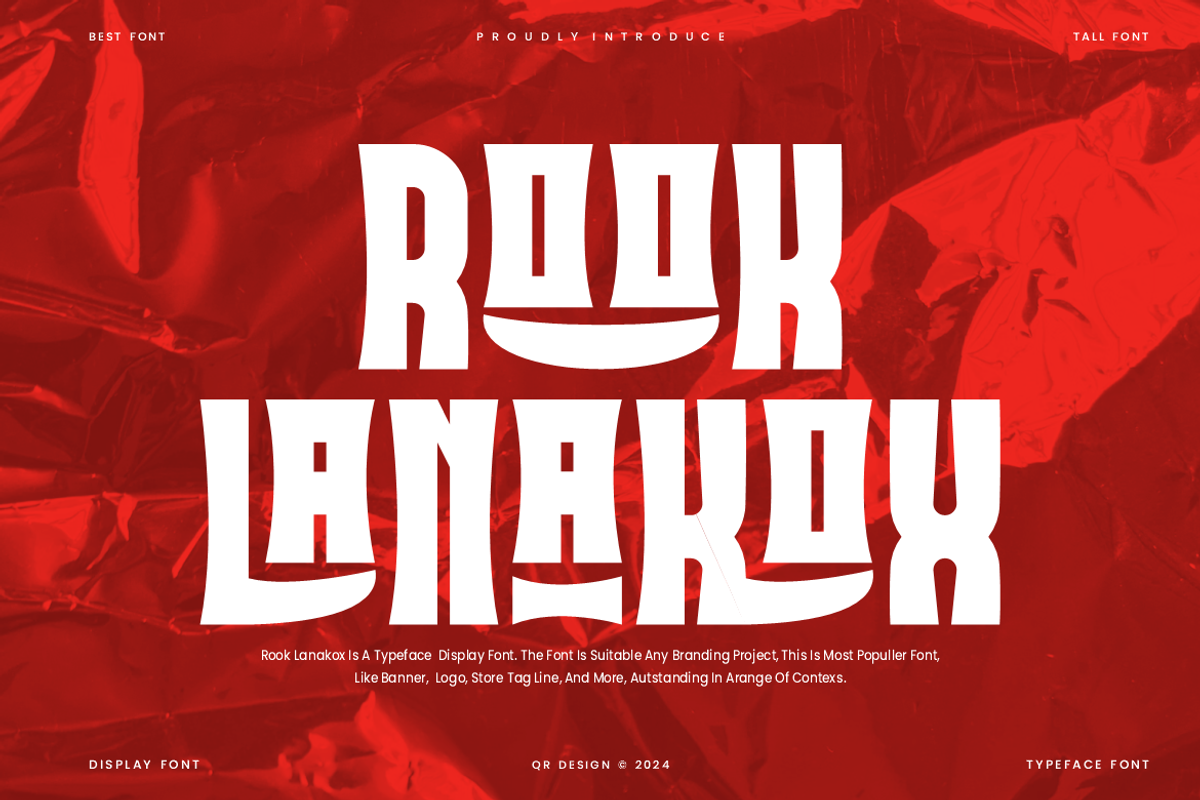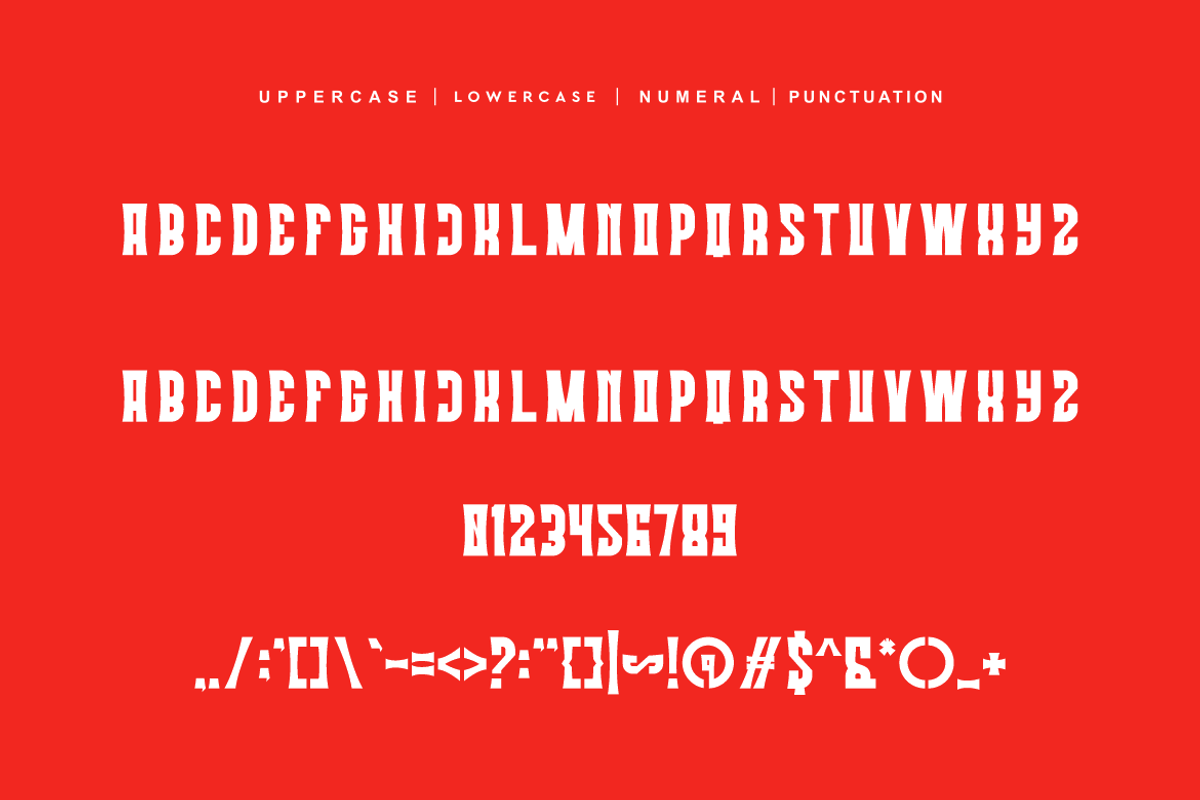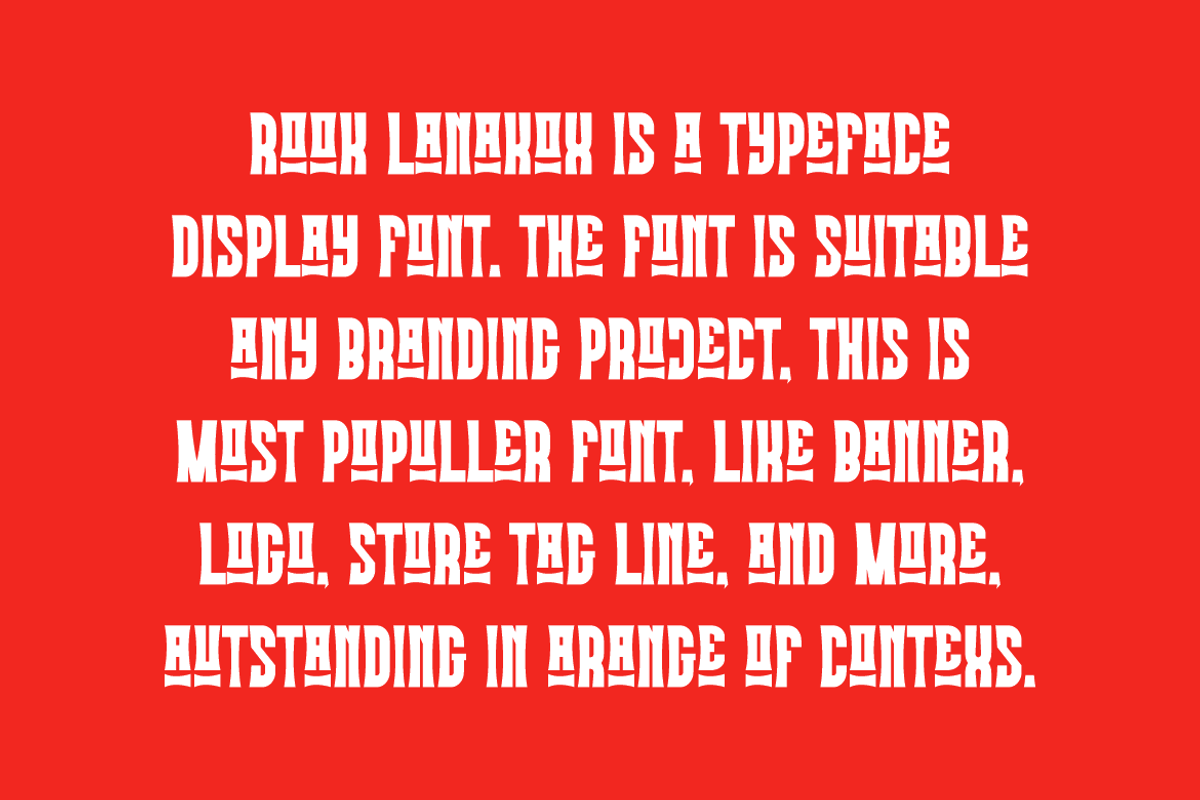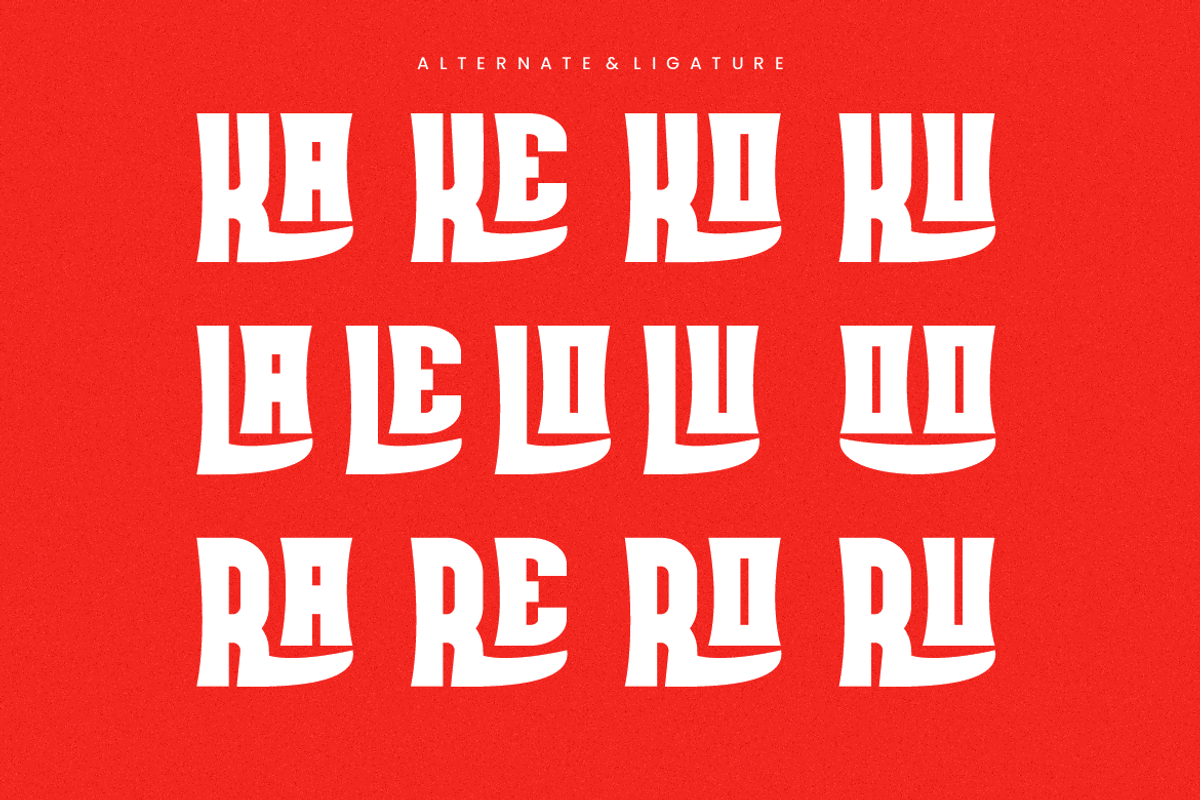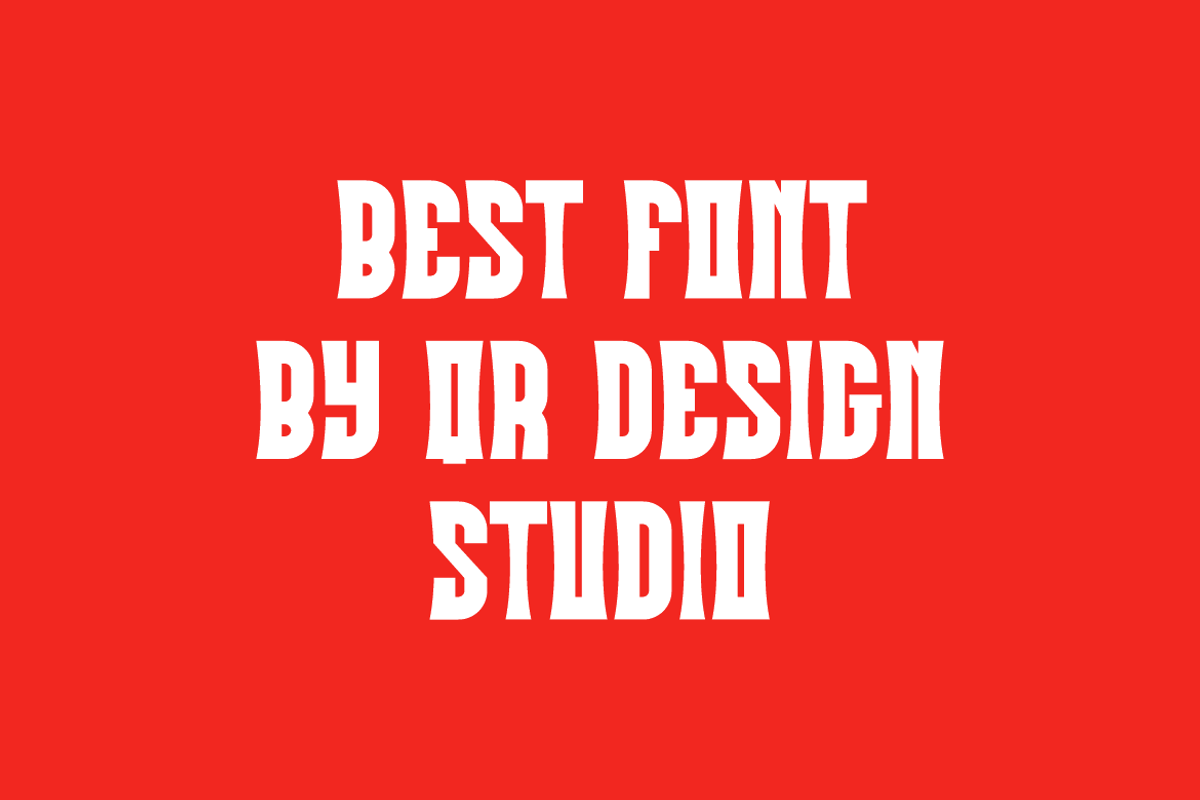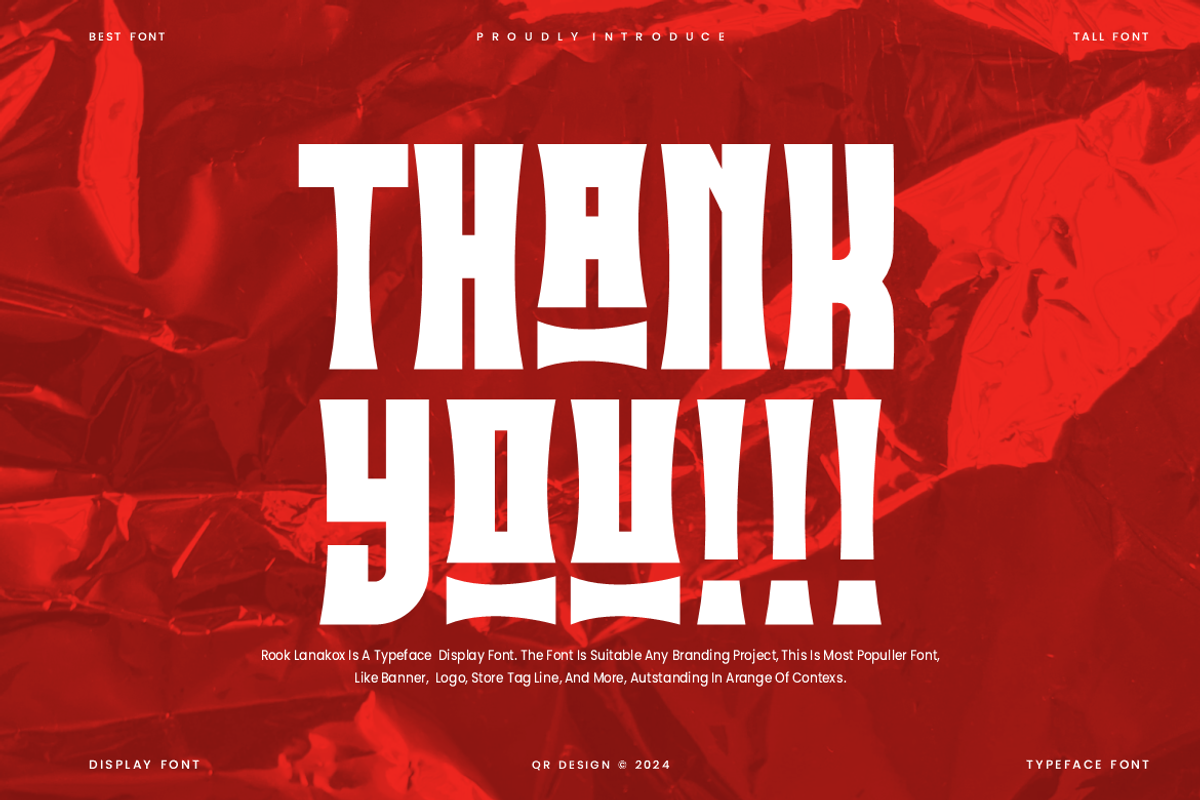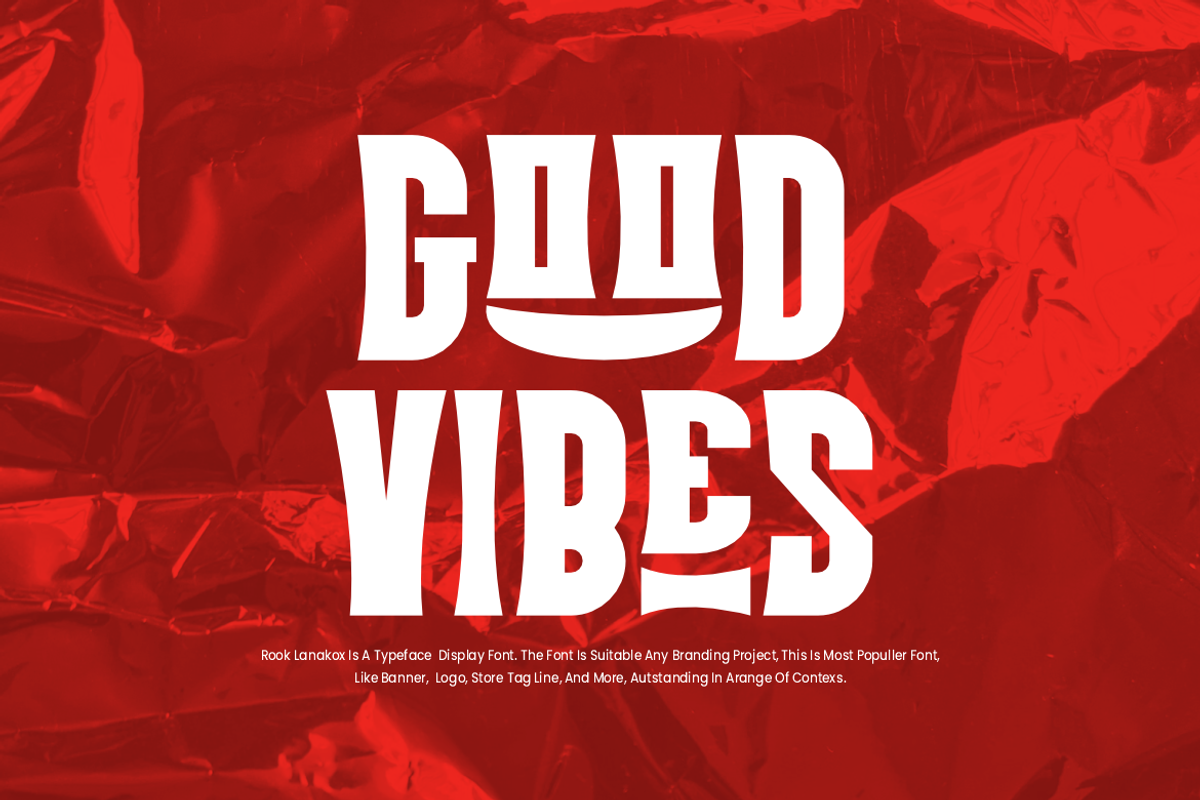
Rook Lanakox - Typeface Font
Rook Lanakox Font is a bold and authentic display font. The font is suitable for any branding project like poster, logo, sport, and many more. Outstanding in a wide range of contexts.